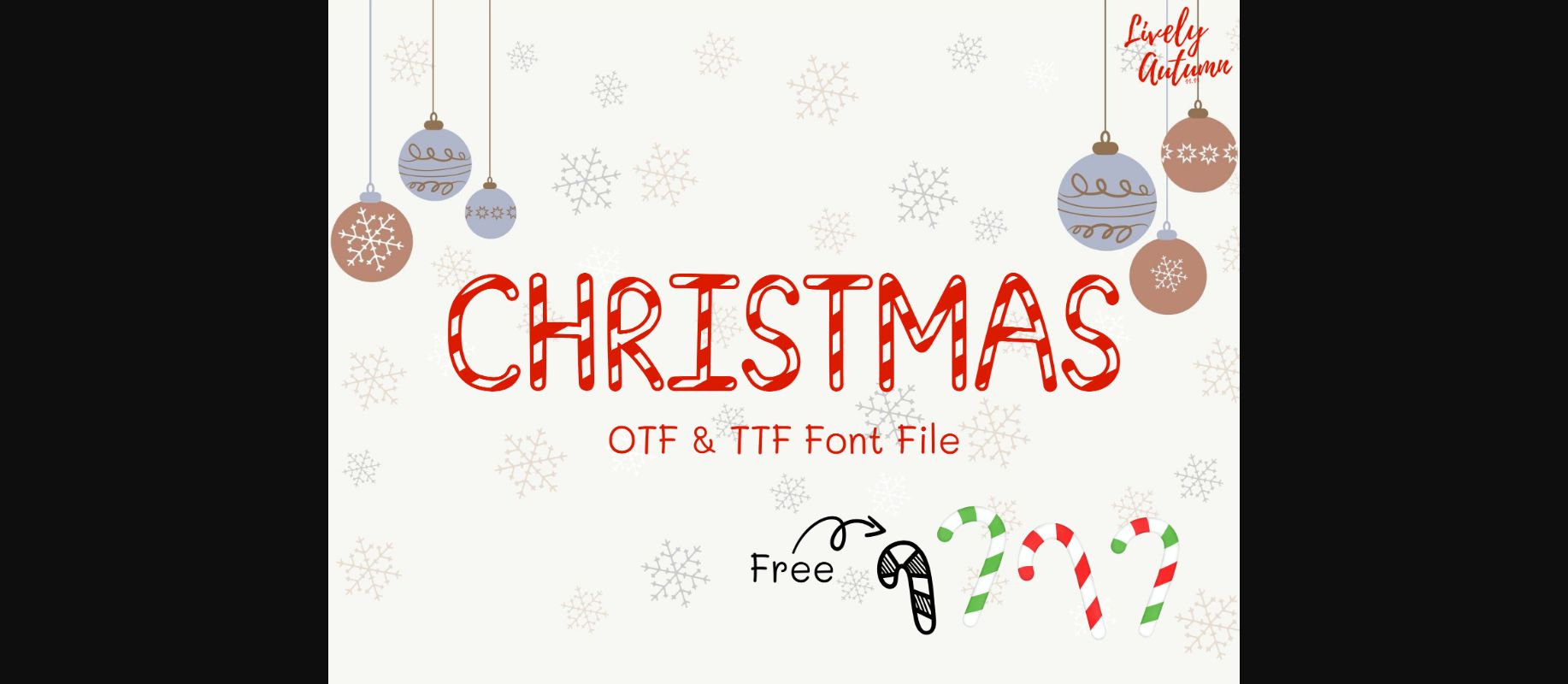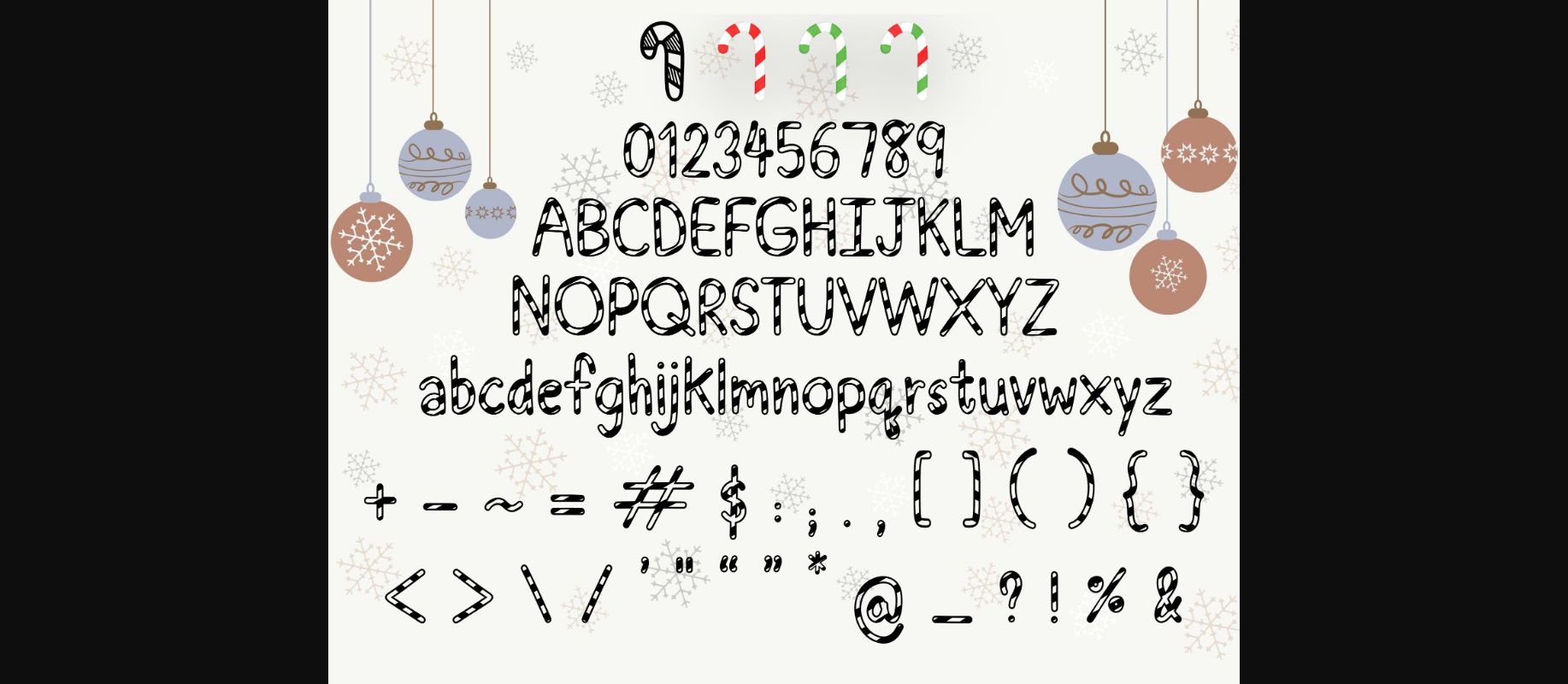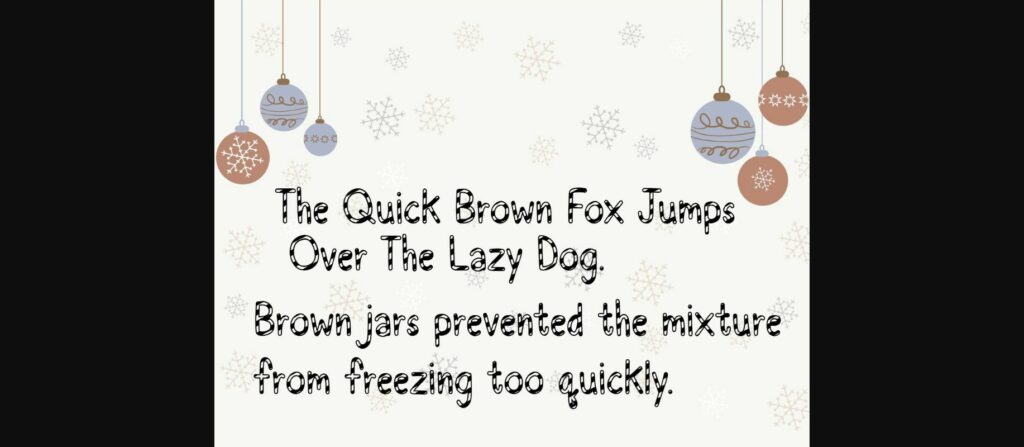
Christmas Font
Christmas Candy Cane Font is a fancy handwritten decorative font. The Candy Cane font is a typeface that features a design inspired by Candy Cane Stripes, which adorn each letter. Making it perfect for your winter and Christmas-themed projects.